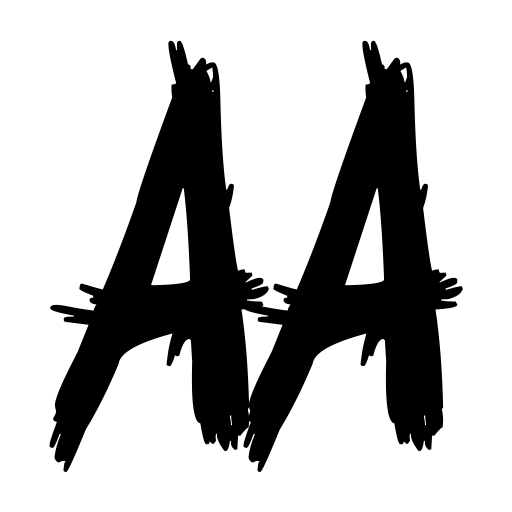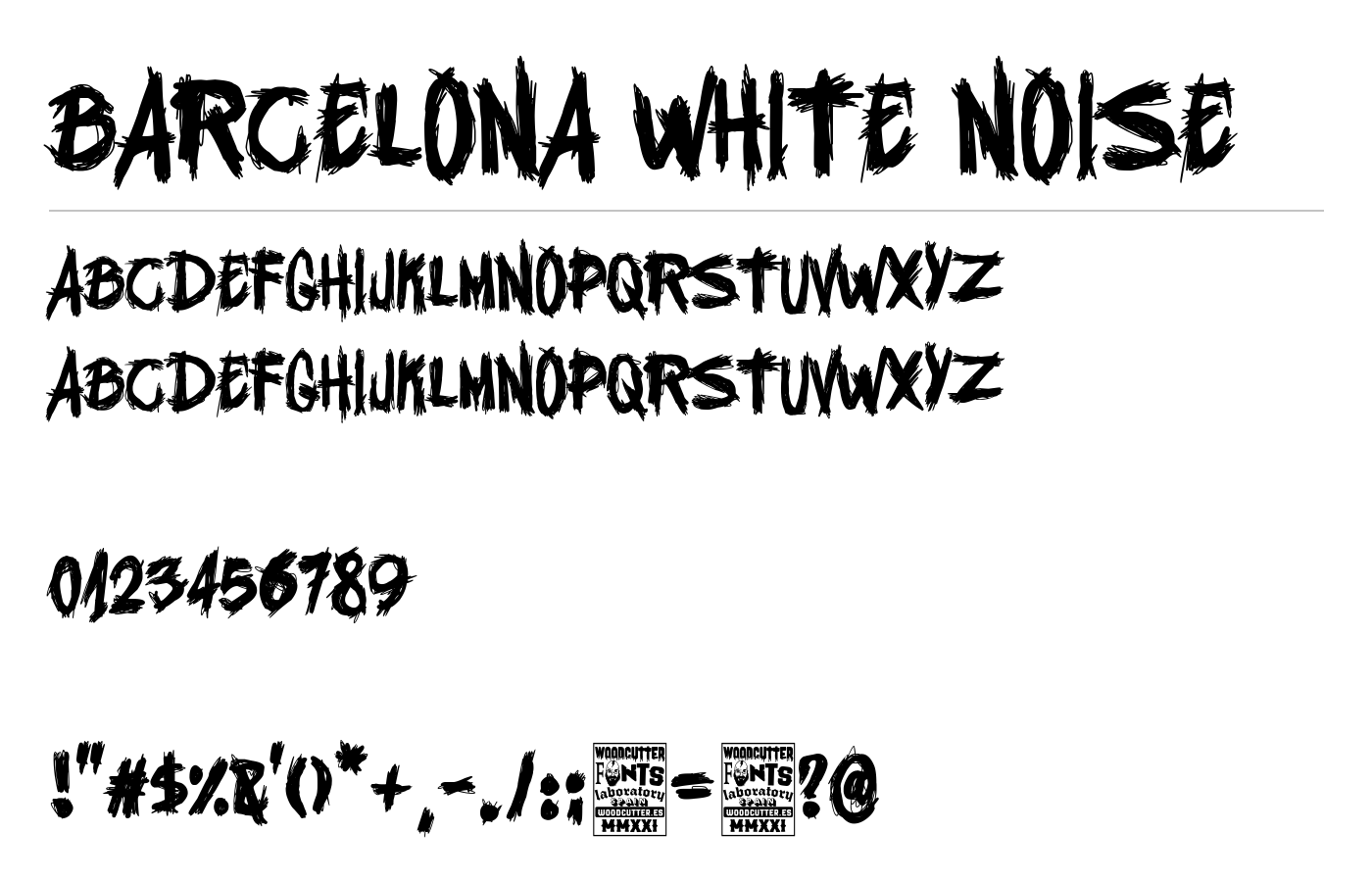
Barcelona White Noise is a bold, energetic sans serif font with a rough, hand-drawn texture that gives it a dynamic and edgy feel. Its irregular strokes and grungy style make it perfect for expressive headlines, posters, or brands seeking a rebellious and urban vibe. This font stands out in creative projects that want to convey intensity and raw personality.
Barcelona White Noise Font
About Barcelona White Noise Font